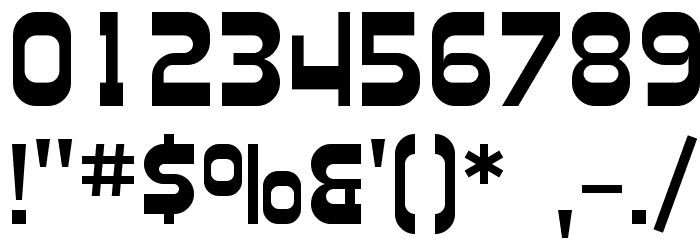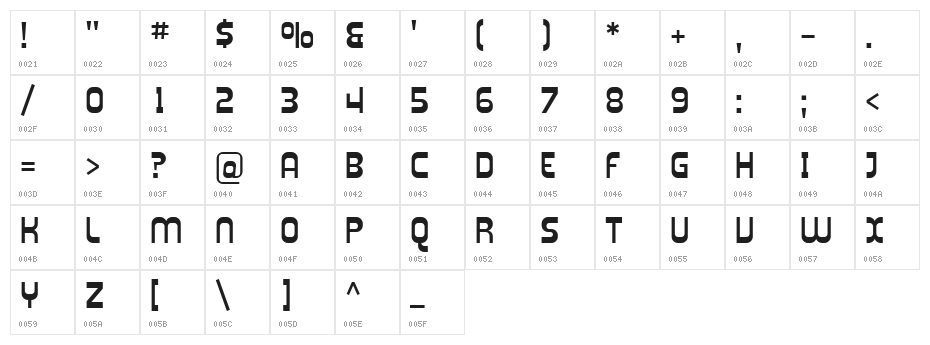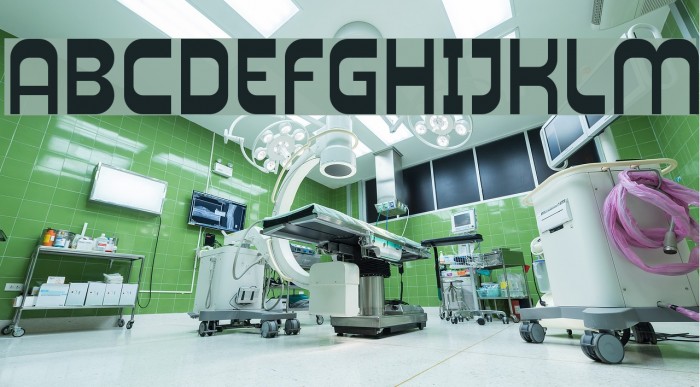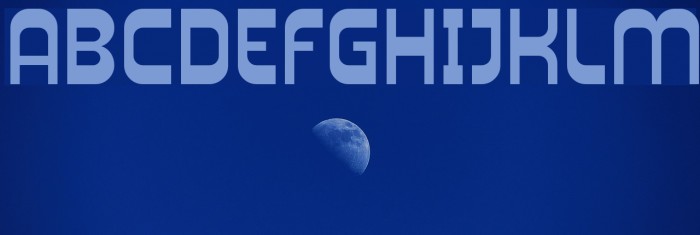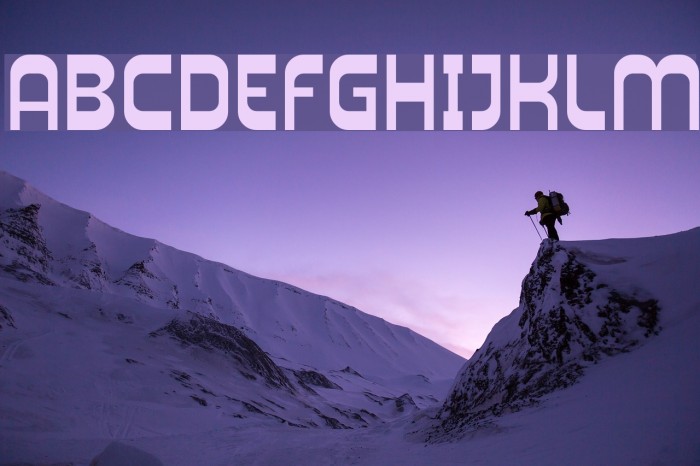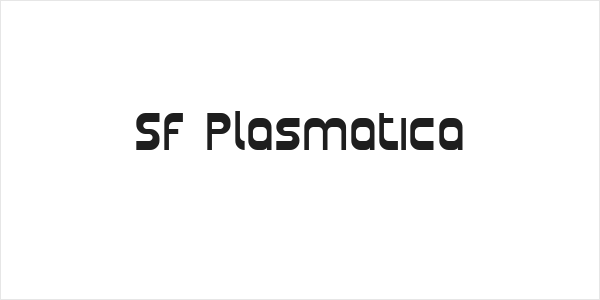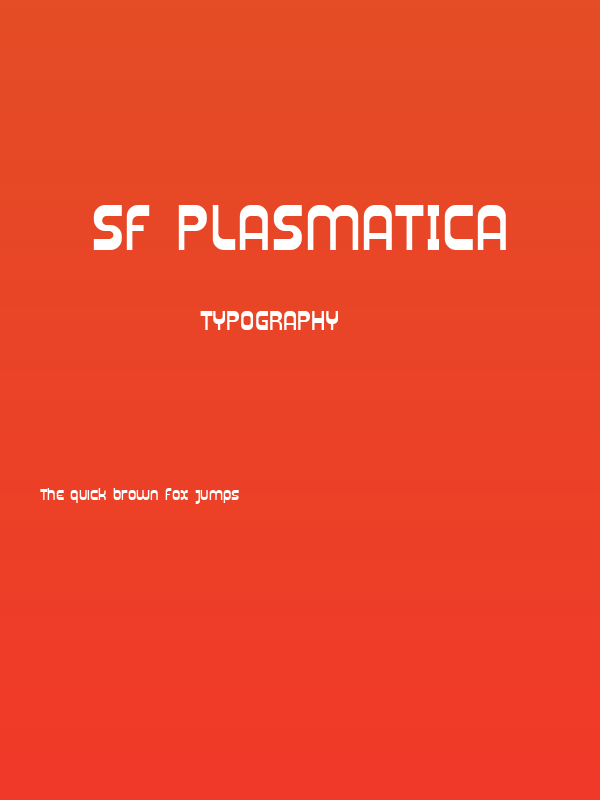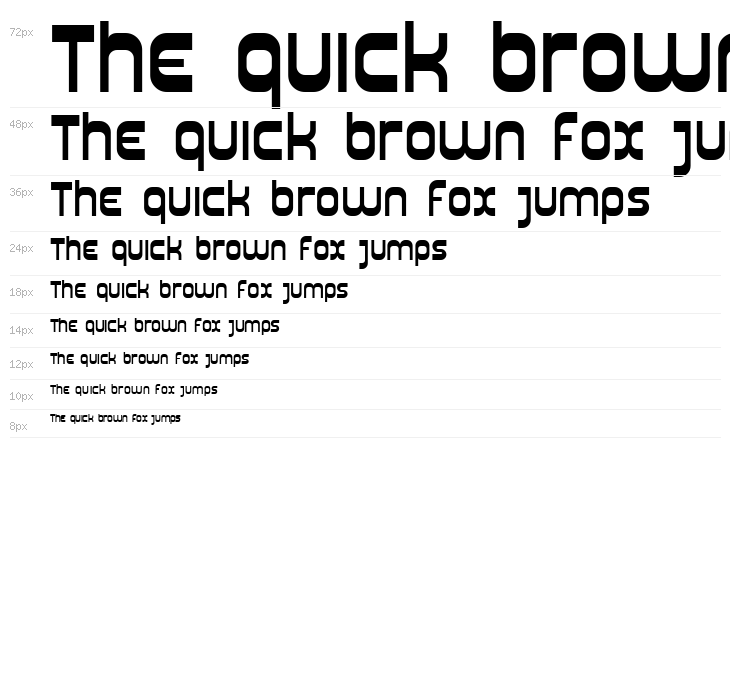
SF Plasmatica Font
SF Plasmatica Description
This font features a futuristic and geometric design, characterized by its rounded edges and uniform stroke width. The uppercase and lowercase letters maintain a consistent style, with a modern and sleek appearance. The numerals and special characters are designed to complement the overall aesthetic, making it suitable for digital and tech-oriented projects. Its clean lines and balanced proportions ensure readability while adding a touch of modernity.
| Proposed Projects | Ideal for tech branding, digital interfaces, video game design, and modern advertising. |